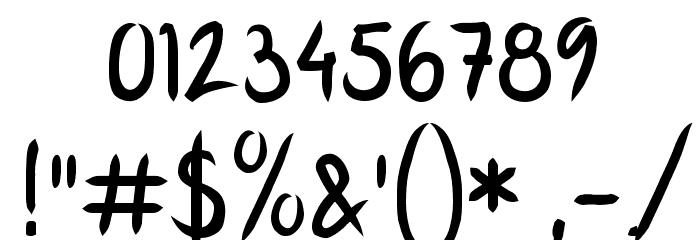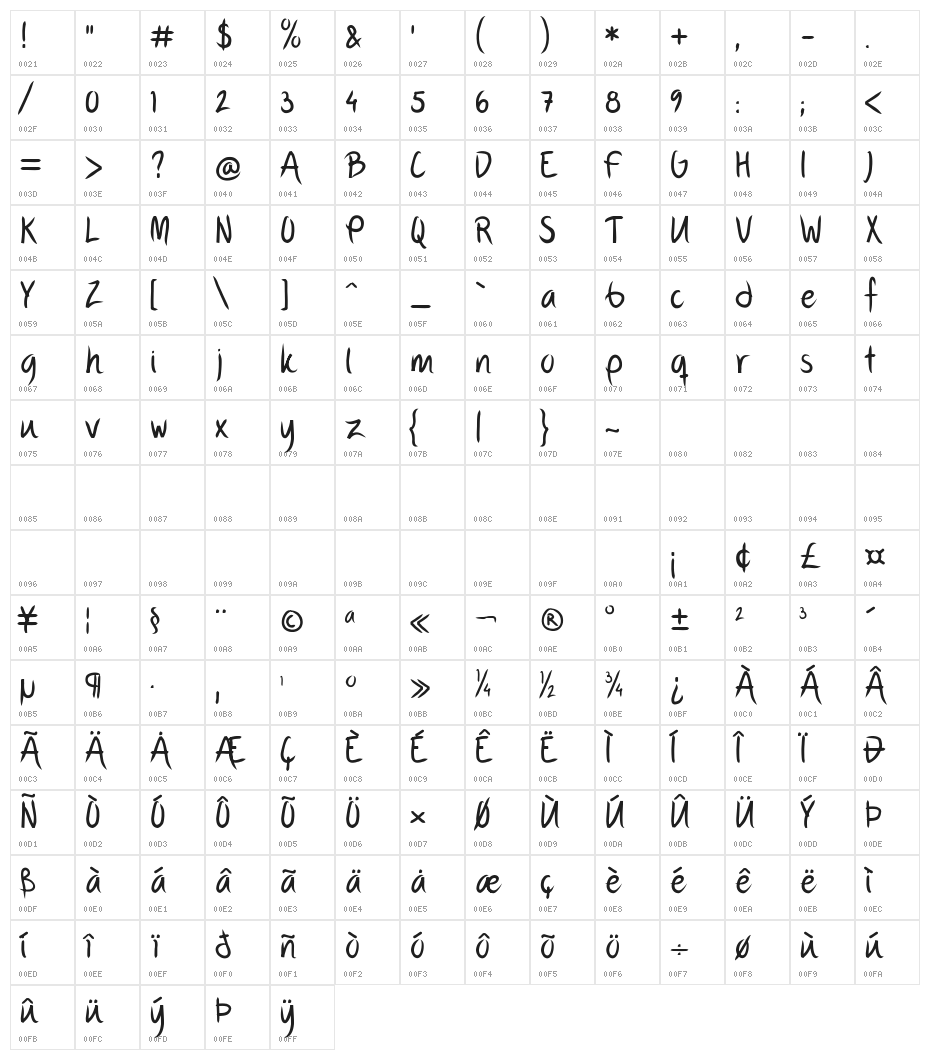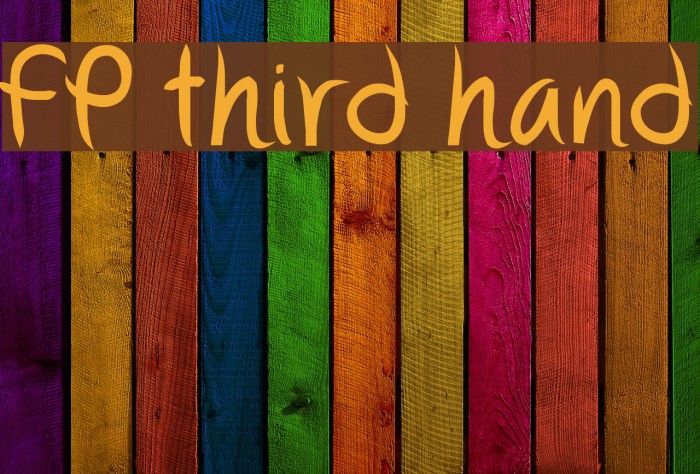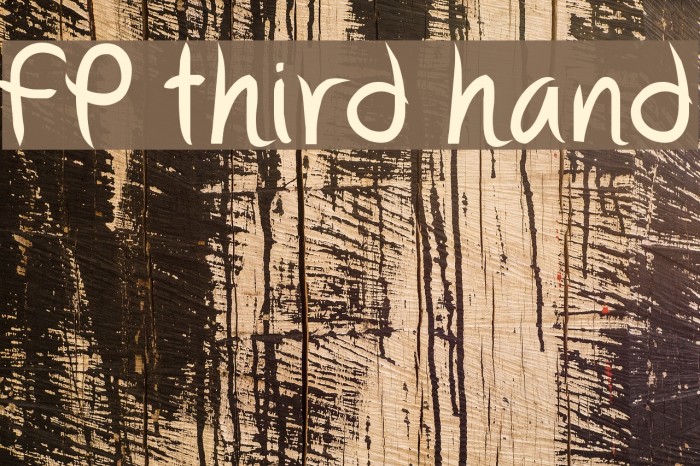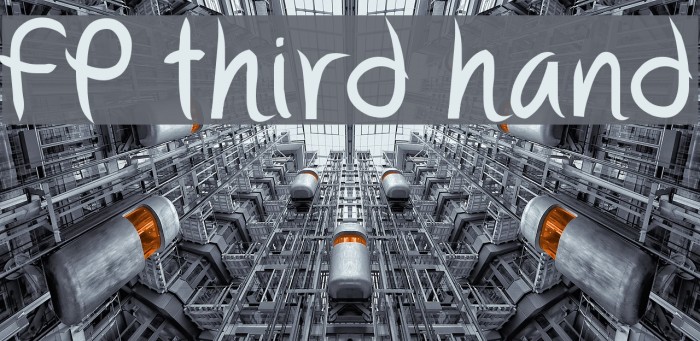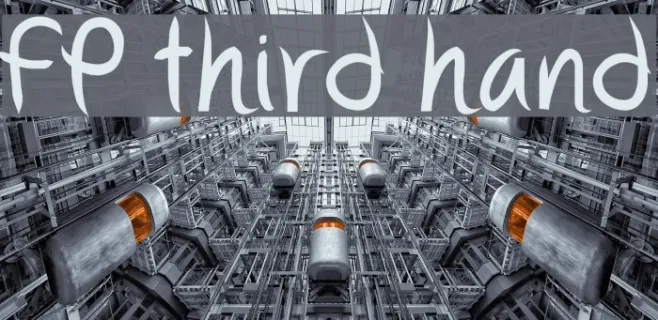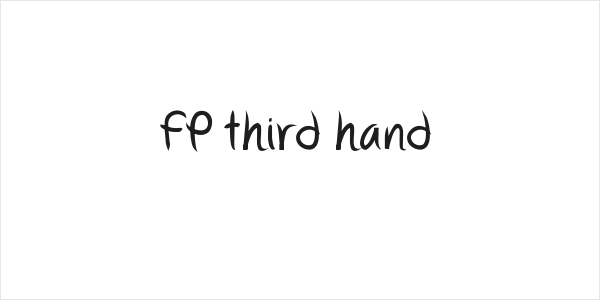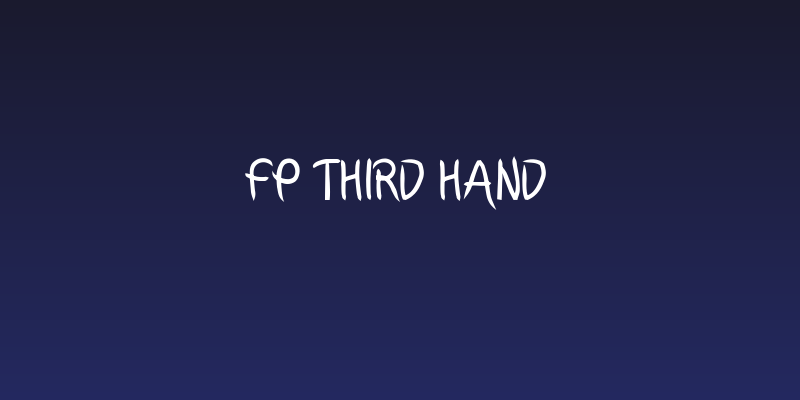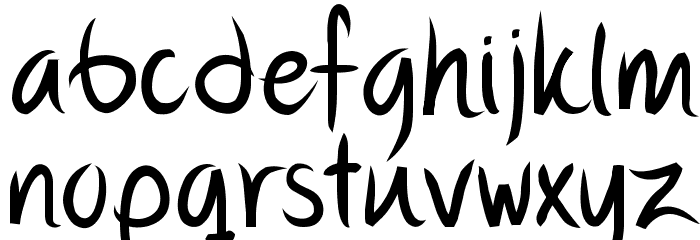
FP third hand Font
FP third hand Description
This font features a dynamic and lively handwritten style, characterized by its fluid strokes and organic shapes. The uppercase letters exhibit a playful yet sophisticated flair, with varying stroke widths that add a sense of movement and energy. The lowercase letters maintain a consistent style, complementing the uppercase with their smooth curves and slightly tilted angles. Numbers and special characters are crafted with the same attention to detail, ensuring a cohesive look across all elements. This font's unique personality makes it stand out, offering a blend of casual elegance and artistic expression.